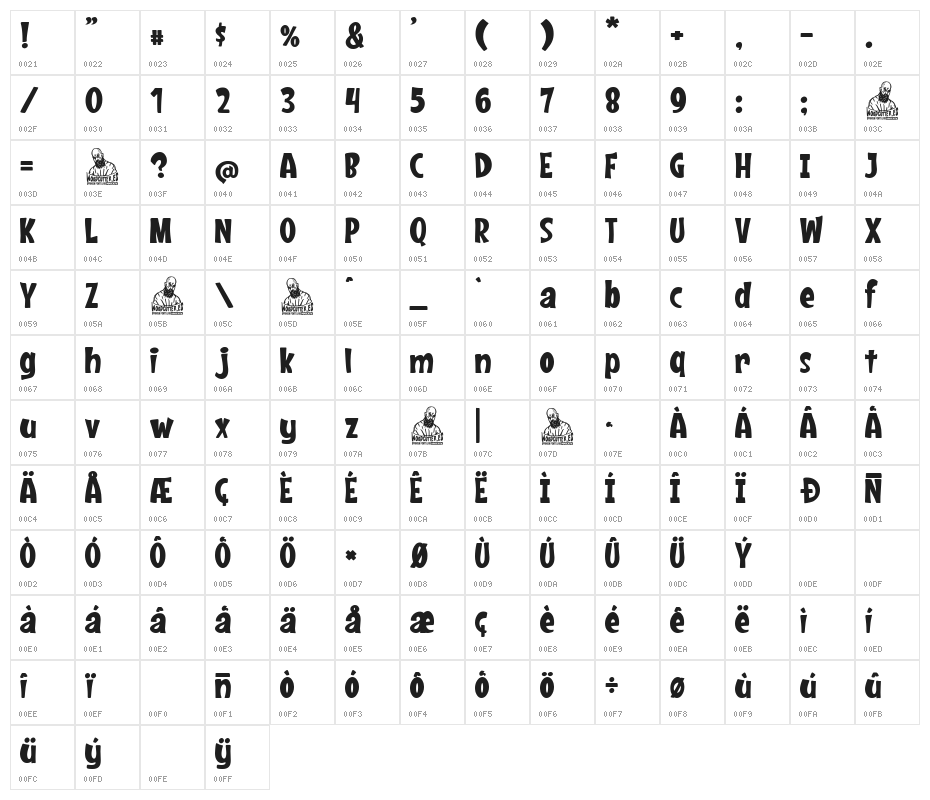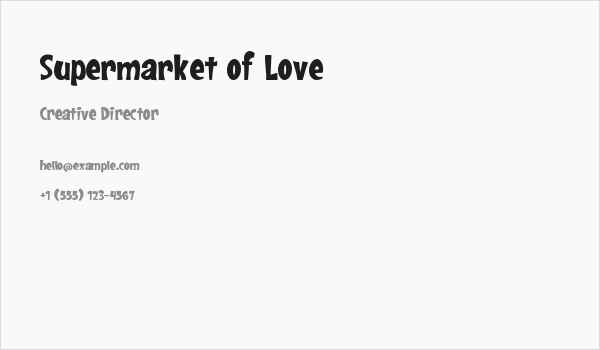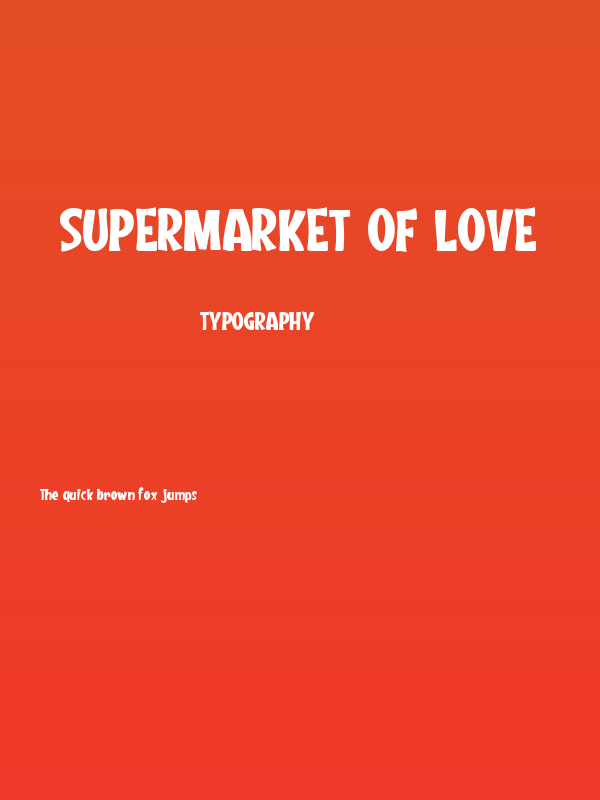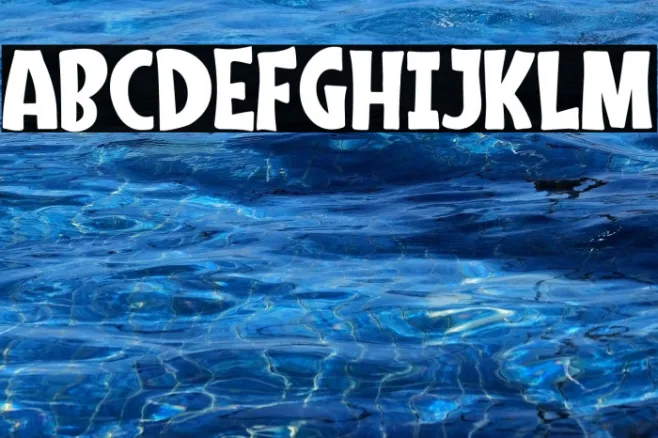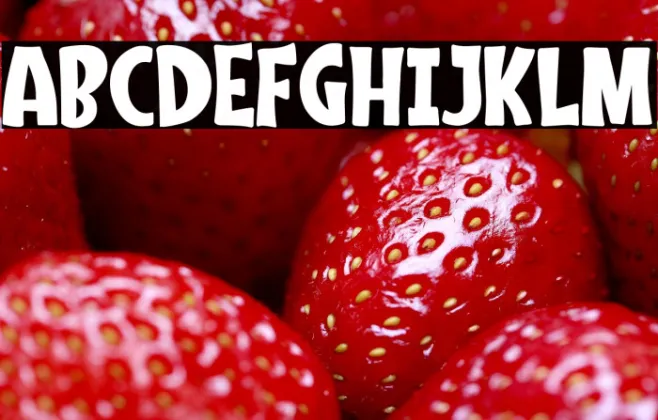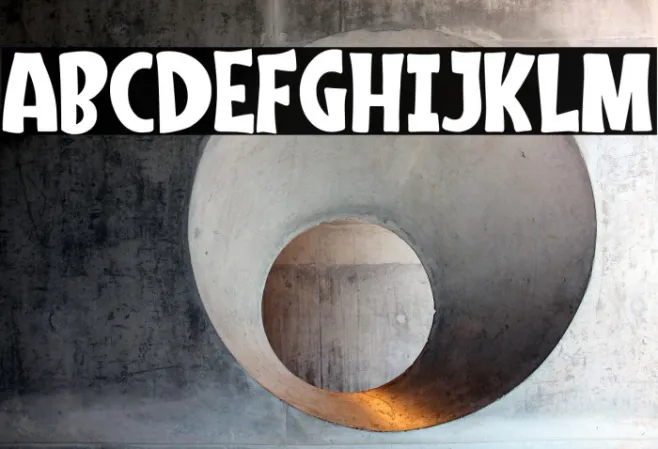
Supermarket of Love Font
Supermarket of Love Description
This font exudes a playful and whimsical charm, characterized by its bold, rounded letterforms and slightly irregular shapes. The strokes are thick and consistent, giving it a strong presence on the page. The uppercase and lowercase letters maintain a cohesive style, with a slight tilt that adds to its quirky personality. Numbers and special characters are equally bold and maintain the same playful aesthetic. The overall design is reminiscent of hand-drawn lettering, making it ideal for projects that require a fun and approachable feel.
| Overall Style | Playful, Whimsical |
| Proposed Projects | Ideal for children's books, playful branding, greeting cards, and posters. |